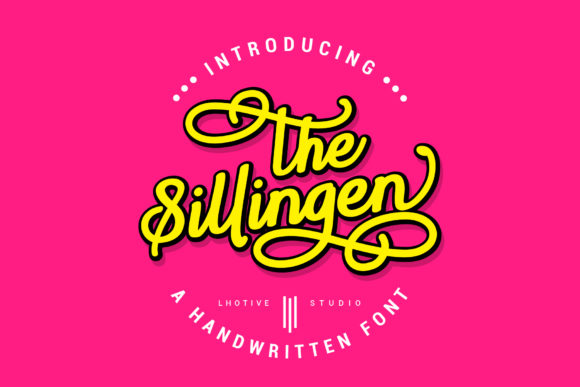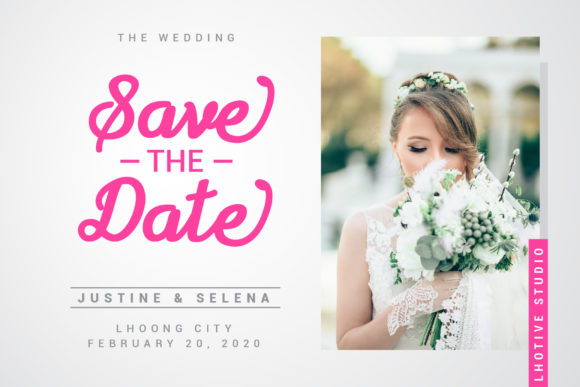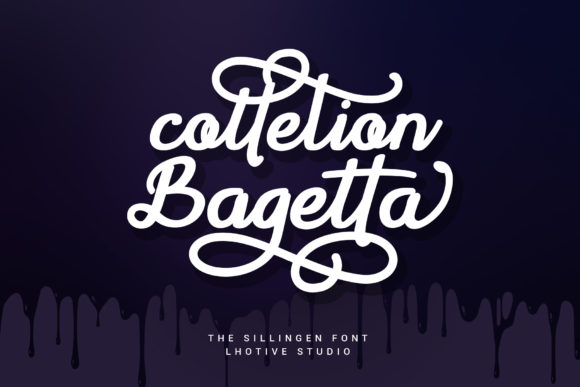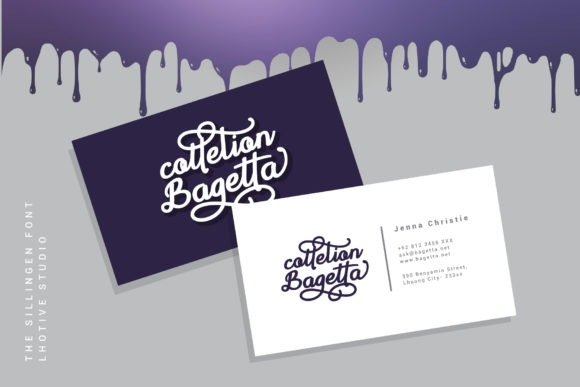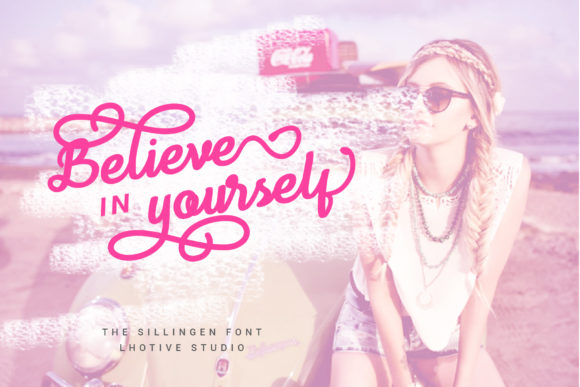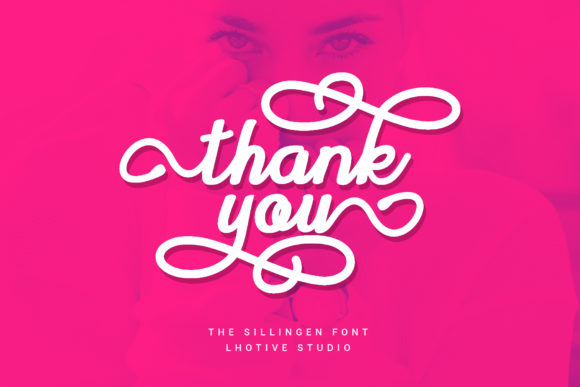
Sillingen Font
About Sillingen Font
Sillingen is a true must-have. This playful and timeless script font will take any design project to the next level.